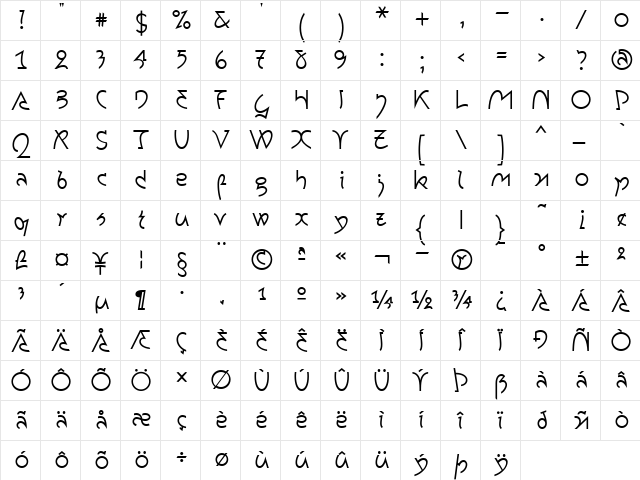
Trombo Light
| Foundry | Andreas Jung, published by FontShop International for FF release |
Design Context for Trombo Typeface
Trombo is a composed and adaptable typeface that performs quietly and consistently across a wide range of design contexts. Its slender proportions lend an understated elegance to any composition.